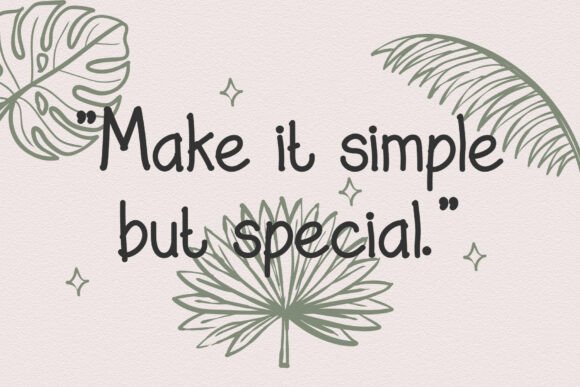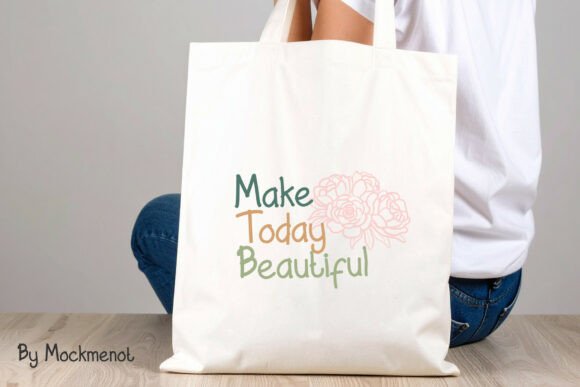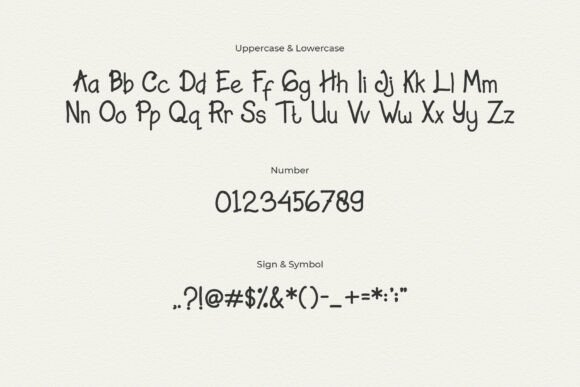
Introduction to Scribella Font
Introducing Scribella, a playful handwritten font with a natural and friendly look.
Its smooth and casual strokes create a charming handwritten feel that adds personality to any design Scribella is perfect for designers and crafters who want a font that feels fun, relaxed, and authentic.
Key Features of Scribella Font
Why Choose Scribella Font?
Scribella Font offers exceptional quality and versatility, making it a valuable addition to your design toolkit. Whether you’re creating for personal projects or commercial use, Scribella Font delivers professional results.